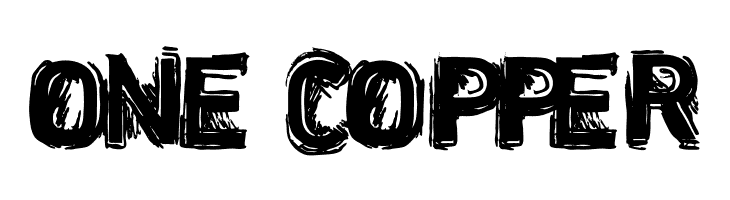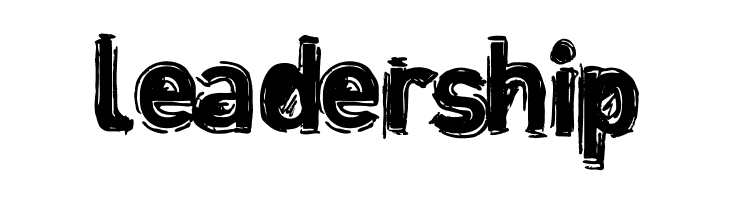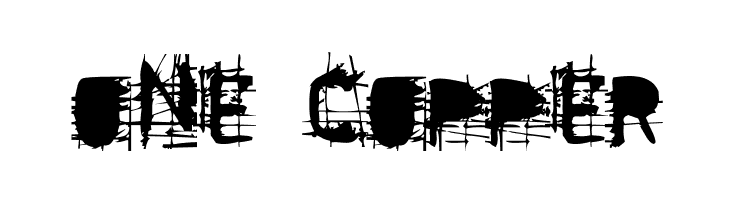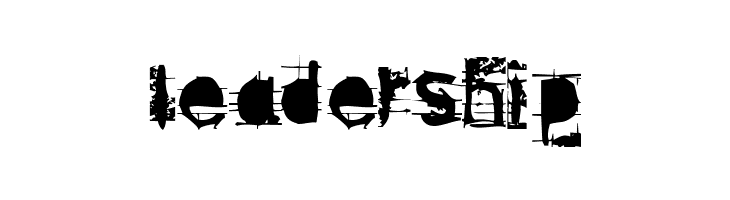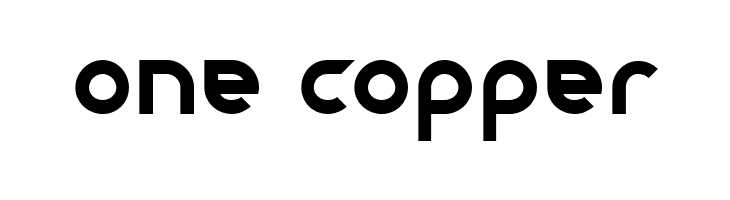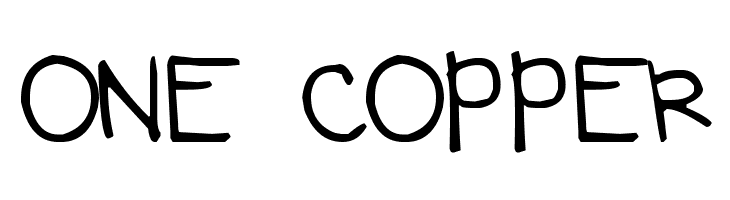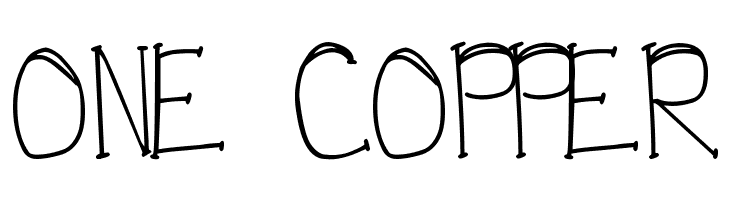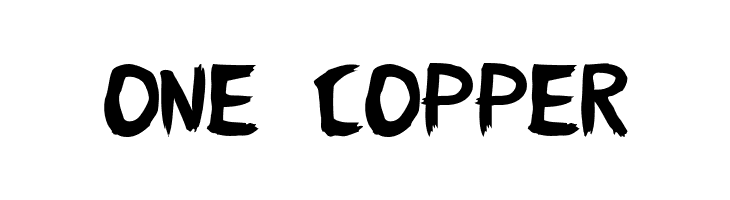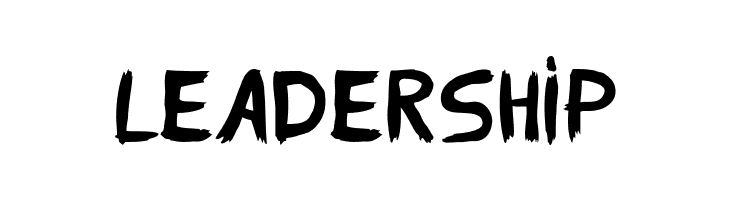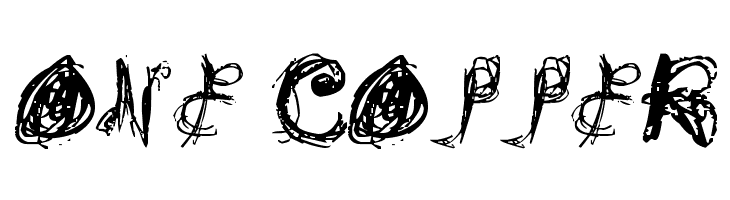
( Chequered Ink - chequered.ink/ )
A pixelated, retro-style font inspired by classic 8-bit video games.
( A font by Jos Buivenga (exljbris) -> www.exljbris.com )
A bold, modern font with a slightly condensed and uniform style.
( A font by Jos Buivenga (exljbris) -> www.exljbris.com )
A bold, modern font with clean lines and a slightly condensed style.
( A font by Jos Buivenga (exljbris) -> www.exljbris.com )
A modern, geometric sans-serif font with rounded edges and excellent readability.
( A font by Jos Buivenga (exljbris) -> www.exljbris.com )
A modern, geometric font with a clean and balanced design.
( Fonts by Grafito Design - dibujosenlinea.ideasintegrales.net )
A dingbat font with line-art icons of art supplies and tech items.
( Chequered Ink - chequered.ink/ )
A playful, hand-drawn font with bold, irregular letterforms.
( R.M.Cleminson - web.archive.org/web/20070208101114/userweb.port.ac.uk/~cleminsr/introd.html )
A classic serif font with elegant curves and a refined appearance.
( Anne Frey - www.annefreyportfolio.com )
A modern yet classic font with elegant, dynamic strokes and artistic flair.
A decorative font made entirely of dinosaur silhouettes.
( Fonts by www.junkohanhero.com )
A decorative font with unique illustrative characters replacing traditional letters and numbers.
A playful dingbat font with diverse, bold symbols and abstract icons.
Retro cartoon dingbat set with bold, humorous illustrations.
( Fonts by Cumberland Fontworks - http://www222.pair.com/sjohn/fonts.htm - S. John Ross )
A bold, distressed font with a gritty, vintage appearance.
A playful, chalkboard-style font with a textured, hand-drawn appearance.
A playful, hand-drawn font with a whimsical and doodle-like style.
A playful, handwritten font with a whimsical and informal style.
A playful, handwritten font with a casual and friendly vibe.
A playful, handwritten-style font with a casual and dynamic appearance.
A playful, handwritten font with a casual and approachable style.
A playful, handwritten font with a whimsical and friendly style.
A playful, handwritten font with a casual and whimsical style.
( picksuckkss.tumblr.com )
A geometric, pixelated font with a futuristic, tech-inspired design.